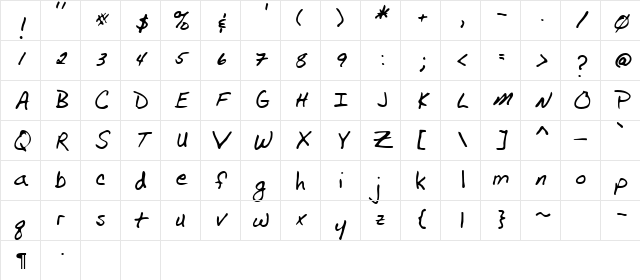
Vockel Regular
Complete Vockel Regular glyph index. Displaying only characters natively supported by Vockel Regular font.
Design Context for Vockel
Vockel is a composed and adaptable typeface that performs quietly and consistently across a wide range of design contexts.